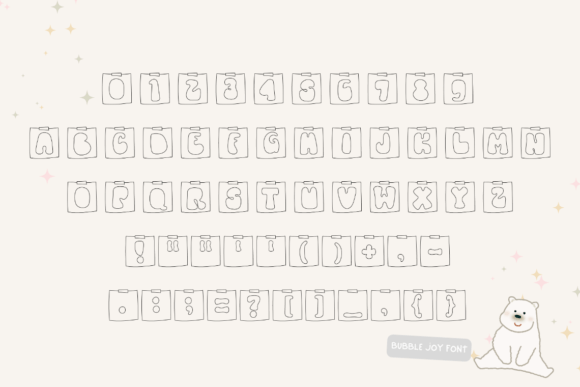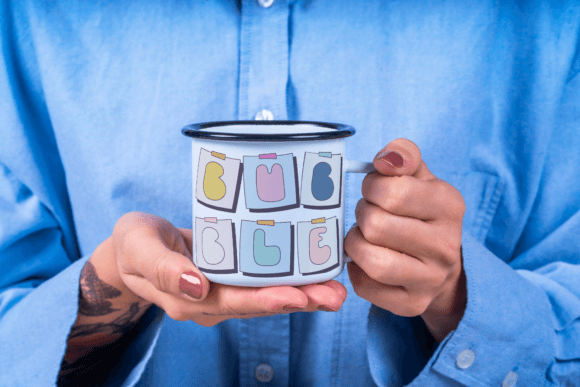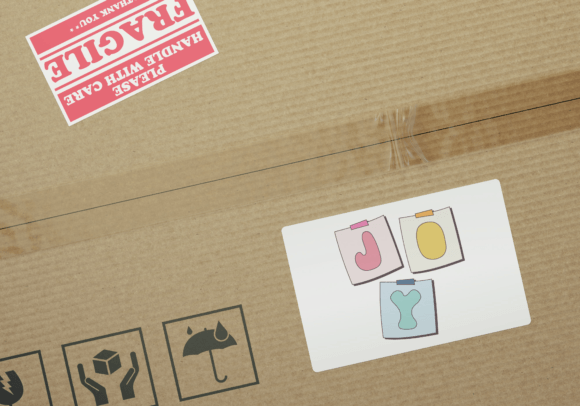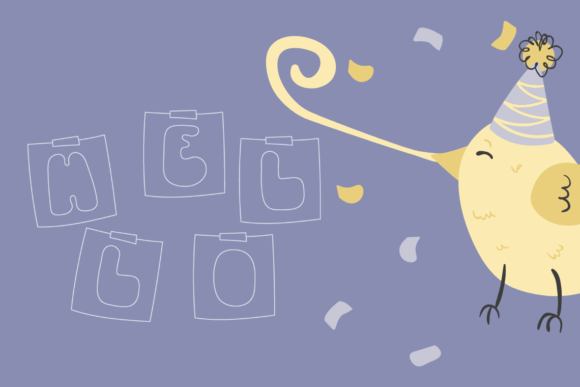
Introducing “Bubble Joy” Font: A Delightful Handwritten Typeface
Have you ever been in the middle of a design project, and suddenly, everything feels off? You’re trying to convey a playful, cheerful vibe, but your font just isn’t cooperating. I recall a recent experience where I was working on a fun, educational project for kids, and my chosen font was falling flat. That’s when I stumbled upon the “Bubble Joy” Font, and it completely transformed my design. In this article, we’ll dive into the whimsical world of Bubble Joy, exploring its features, uses, and what makes it a fantastic addition to any creative project.
A Personal Design Moment: Finding the Right Font
I was designing a set of interactive worksheets for a children’s learning activity, and I needed a font that would capture their attention and make learning fun. As I scrolled through my font library, none seemed quite right – until I discovered Bubble Joy. Its playful, bubbly aesthetic was perfect for the project, and it instantly elevated the entire design. The joy and excitement that Bubble Joy brought to my project were palpable, and I knew I had to share this delightful font with fellow designers and creative hobbyists.
An Honest Review of Bubble Joy Font
What I Love About Bubble Joy ✨
- ✅ Whimsical and playful design that’s perfect for Kawaii-themed projects
- ✅ Delightful handwritten typeface that adds a personal touch to any design
- ✅ Easy to read and understand, making it suitable for educational materials
- ✅ Versatile and can be used for a wide range of creative projects, from paper notes to packaging
- ⚠️ Some letters may appear a bit condensed, which could affect readability at smaller font sizes
- ⚠️ Limited availability of stylistic alternates, which might limit design flexibility
The Backstory Behind Bubble Joy Font
Bubble Joy was designed with the intention of spreading joy and playfulness through typography. The font’s creator wanted to capture the whimsical essence of Kawaii culture and bring it to life in a delightful, handwritten typeface. With Bubble Joy, designers and creative hobbyists can infuse their projects with a sense of fun and charm, making every design a celebration of creativity and happiness.
A: Bubble Joy Font is perfect for educational materials, such as worksheets, activity sheets, and educational posters. Its playful and whimsical design makes learning fun and engaging for students.
A: Absolutely! Bubble Joy Font is designed to be versatile and can be used for both digital and print designs. Its clear and readable design makes it perfect for a wide range of applications.